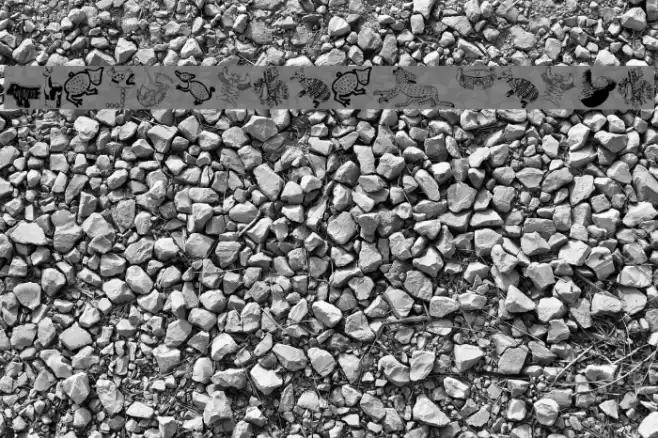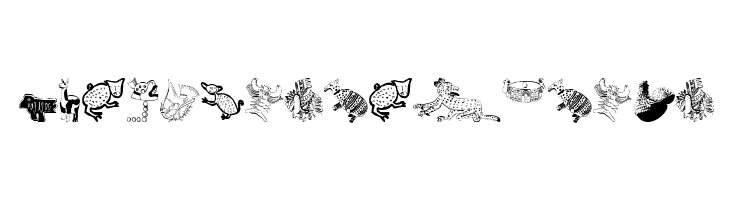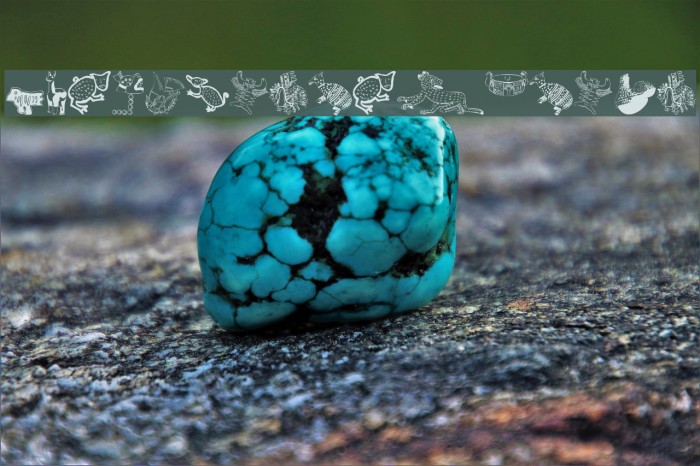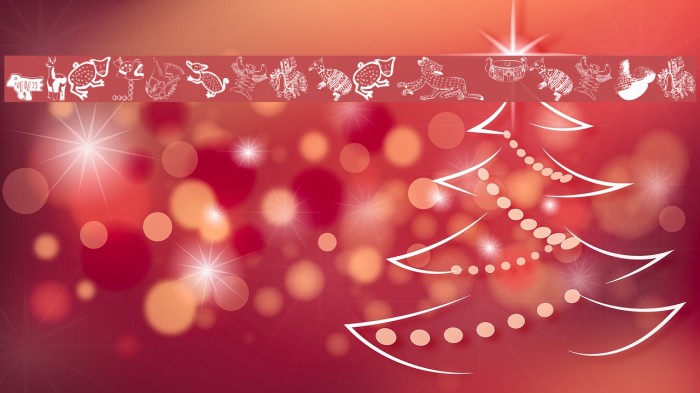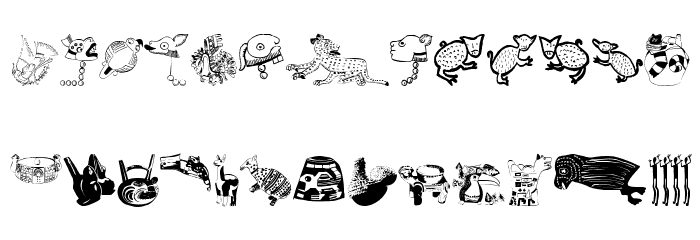
TribalDesignsDue Font
TribalDesignsDue Description
A highly decorative font featuring intricate tribal and animal-inspired illustrations for each character, with bold outlines and detailed internal patterns, evoking indigenous art styles.
Decorative font with tribal and animal motif illustrations from Uncategorized fonts.
- Proposed Projects: Posters, event flyers, children’s books, themed branding, educational materials, art projects.
- Overall Style: Decorative, Tribal, Artistic
- Use Case: Logos, Headlines, Posters, Themed Graphics